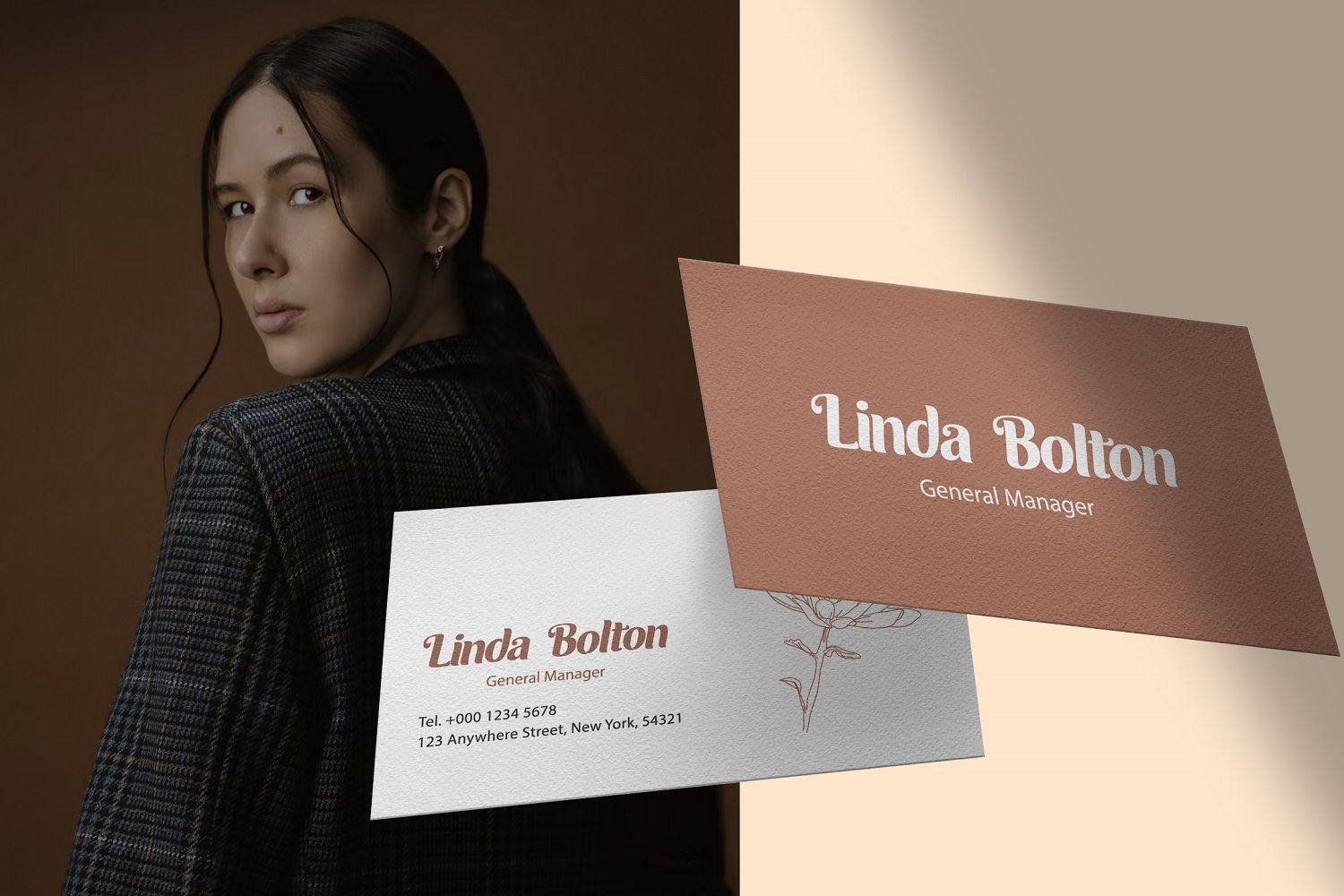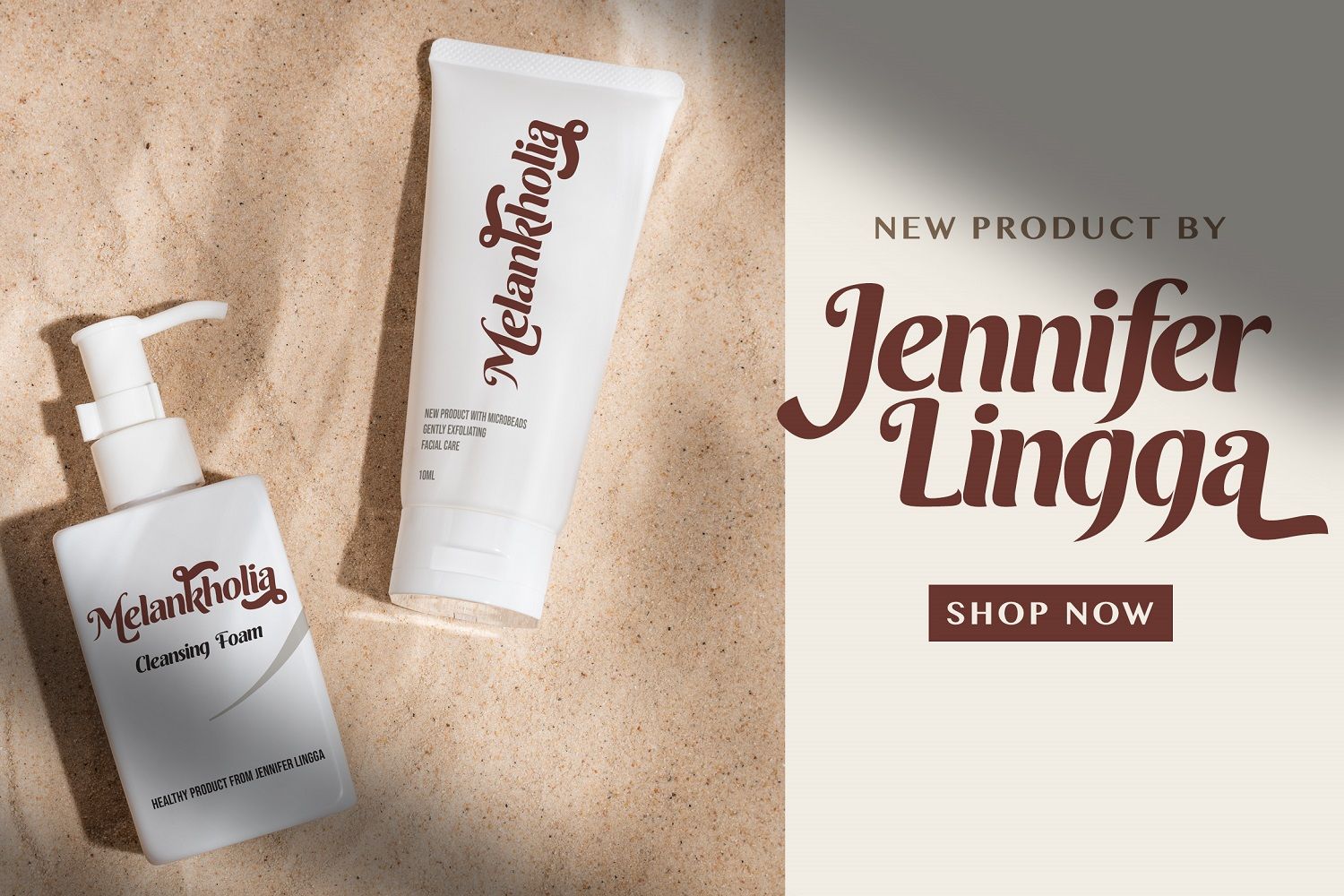
Free Roshinta Decorative Display Font is a soft, expressive sans serif with a graceful script touch, perfect when you want typography to feel warm and personal without losing clarity. Its rounded strokes, gentle contrast, and slightly flared terminals create a flowing rhythm that looks beautiful in large titles and short phrases. With full uppercase and lowercase sets, numbers, punctuation, multilingual support, and plenty of stylish alternates and ligatures, Free Roshinta Decorative Display Font makes it easy to build logo wordmarks, branding systems, and packaging that feel handcrafted and elegant.
This font works especially well for wedding invitations, save-the-date cards, lifestyle blogs, feminine branding, organic or skincare labels, and social media posts where typography becomes the main visual element. Pair Free Roshinta Decorative Display Font with a clean sans serif for body copy and you get a polished, modern look that still feels friendly and inviting. Whenever you need a decorative display font that balances romance and readability, Free Roshinta Decorative Display Font is a strong choice.